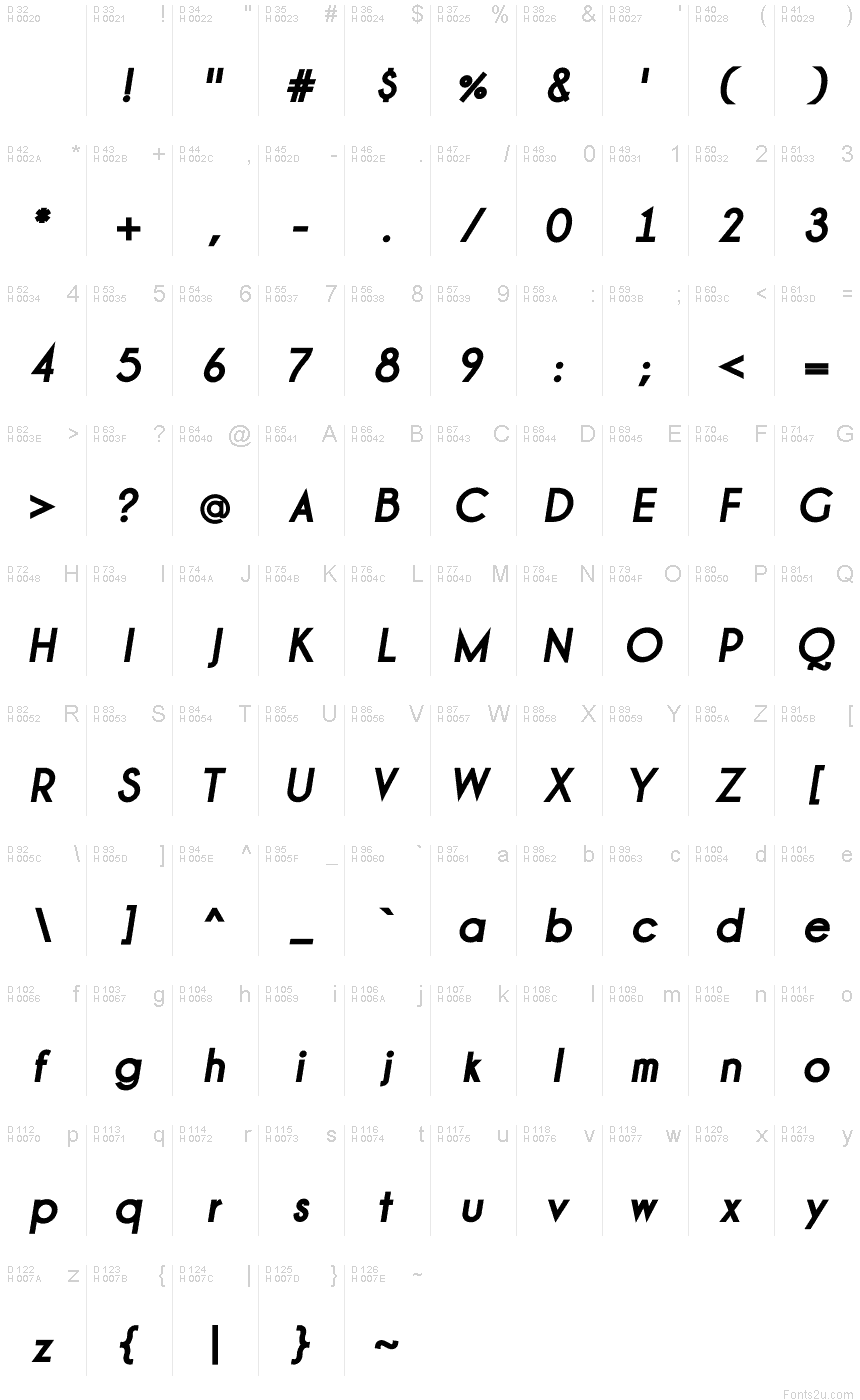
Champagne & Limousines Thick Bold Italic by Lauren Thompson is a free bold italic sans serif with a steep forward slant and broad, smoothly drawn curves. The substantial letters still look sleek and controlled.
It is especially convincing in fashion branding, where the sweeping profile can turn a logo into something brisk and assured. The same streamlined shapes suit cosmetics packaging, editorial covers, and nightlife posters, particularly for designers seeking an upscale look with more force than a delicate fashion face.
A sweet little geometric sans-serif font that doesn't adhere to old rules.